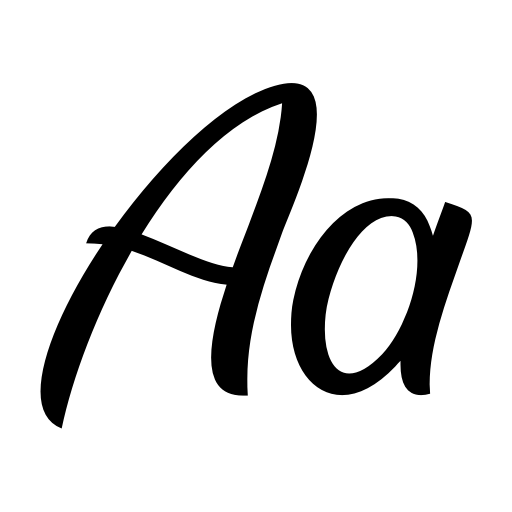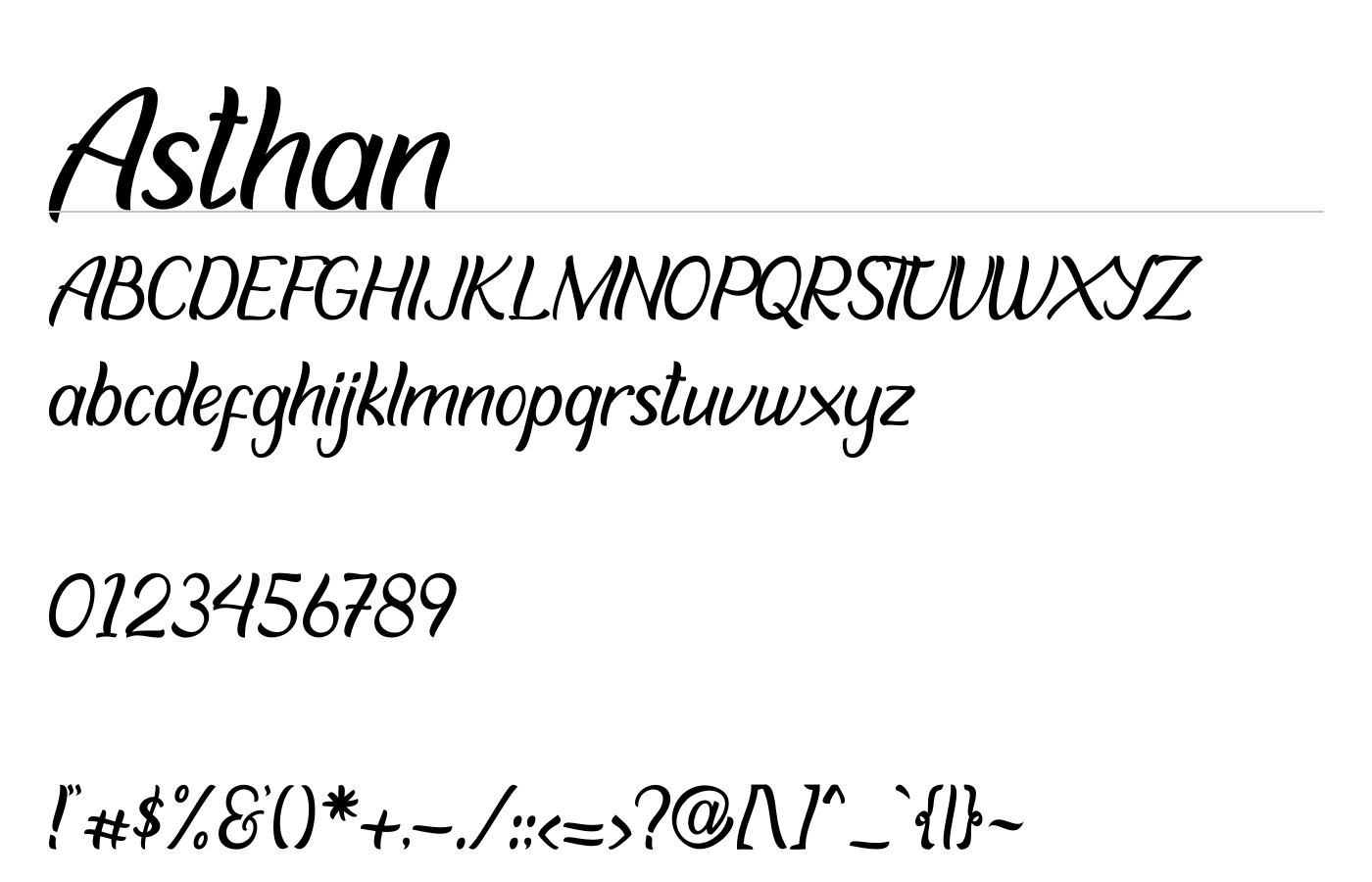
Asthan is a stylish script font with a smooth, semi-cursive design that combines elegance and readability. Its light to regular weight and moderate contrast offer a graceful flow with soft, rounded strokes, making it perfect for adding a personal, sophisticated touch to branding, invitations, and editorial headlines. This font works well in creative and polished contexts where a friendly yet refined impression is desired.
Asthan Font